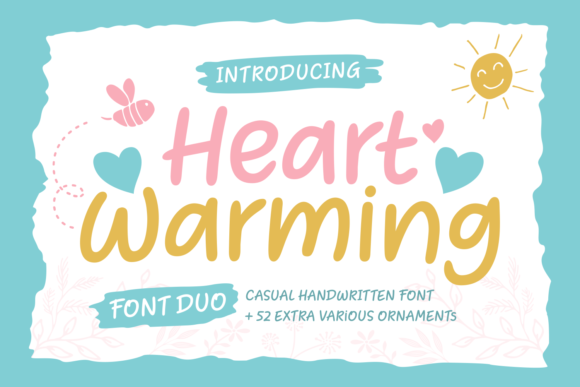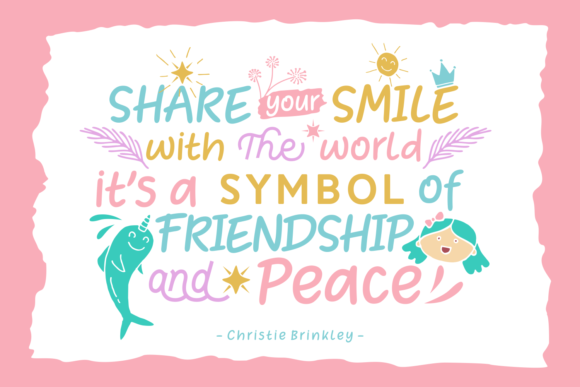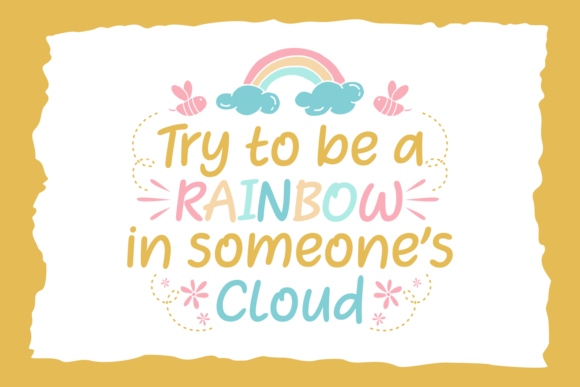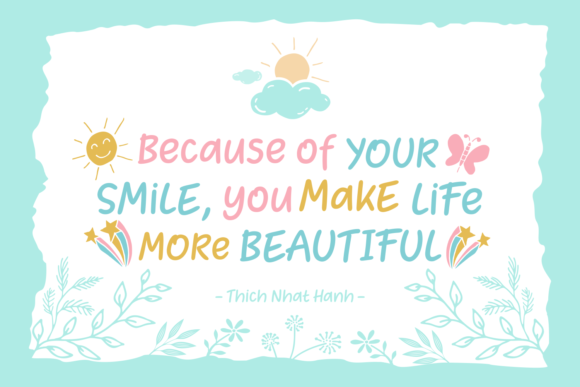
Heart Warming Font
About Heart Warming Font
Heart Warming is a soft, rounded font duo that consists out of the regular font and a version that contains 50 bonus ornaments.
This playful font is very legible, which makes it suitable for a lot of different types of projects.